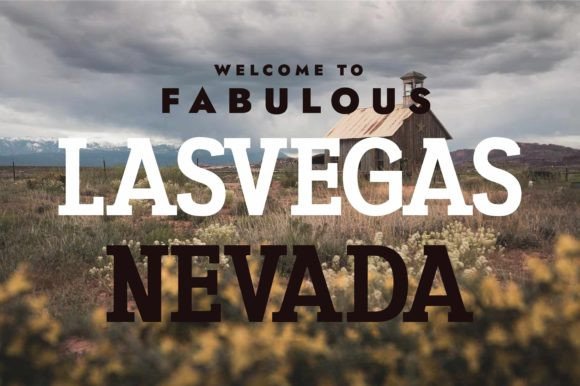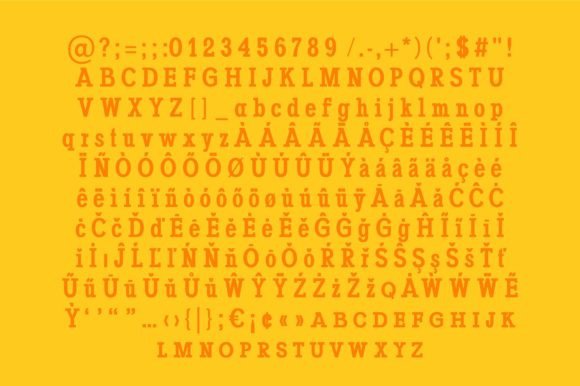
NEVADA FONT SPECIMEN
Nevada is a unique and incredibly studied slab serif typeface. It has a bold and strong aspect, but it can still adapt and suit both vintage and modern content. It is a great font to have in your font library, so you can produce both vintage and modern designs using one simple serif font. Use it confidently in your creations, and notice how unlimited cute results can be obtained.